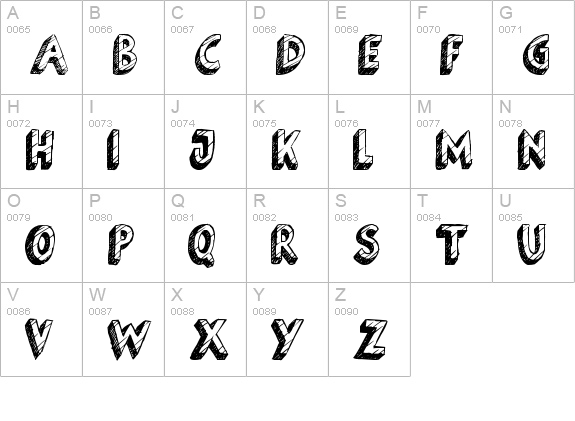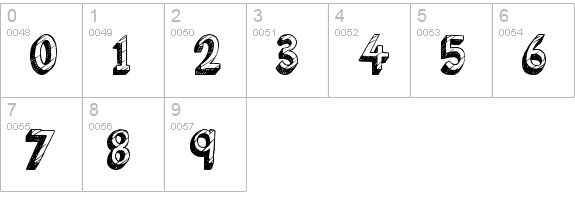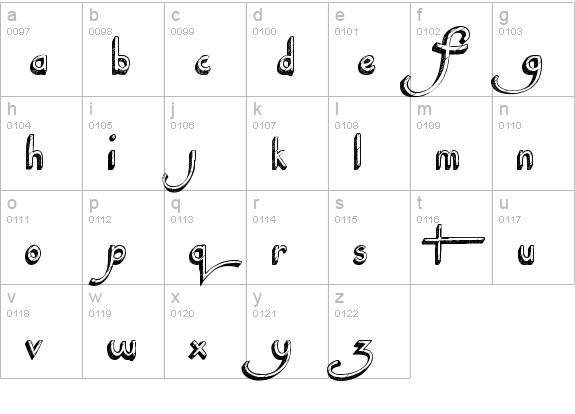
Introducing Splushy, a vibrant and playful font that will add a splash of creativity to any design project. This one-of-a-kind typeface is perfect for those looking to make a bold statement and captivate their audience. With its unique and fluid letterforms, Splushy catches the eye and leaves a lasting impression. Whether you're designing a logo, poster, or social media graphics, Splushy will bring your ideas to life with its dynamic personality. Each letter is carefully crafted to have a lively and energetic feel, making it perfect for projects that require a touch of excitement and spontaneity. But here's the best part - Splushy is absolutely free! Yes, you read that right. You can freely download this amazing font at FontsMarket.com. We believe that creativity should be accessible to all, and that's why we made Splushy available for everyone to enjoy. So go ahead, unleash your imagination, and let Splushy take your designs to new heights. Don't miss out on this opportunity to add a splash of fun to your next project. Download Splushy today and let your creativity flow freely!